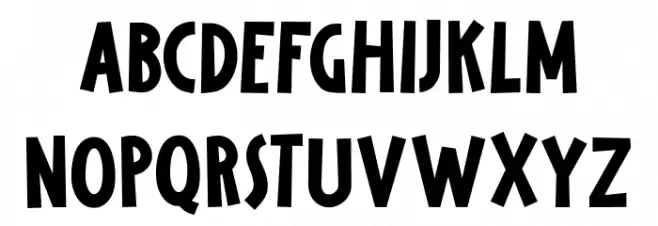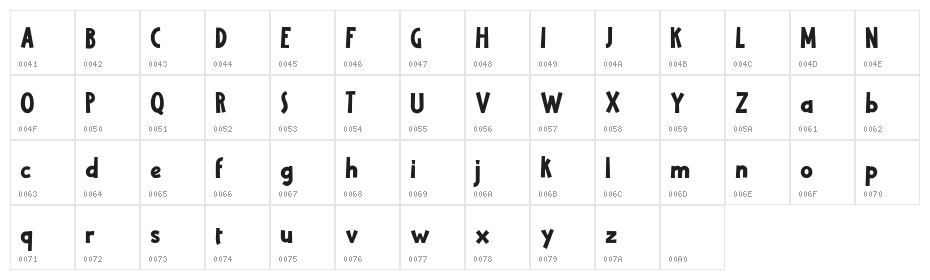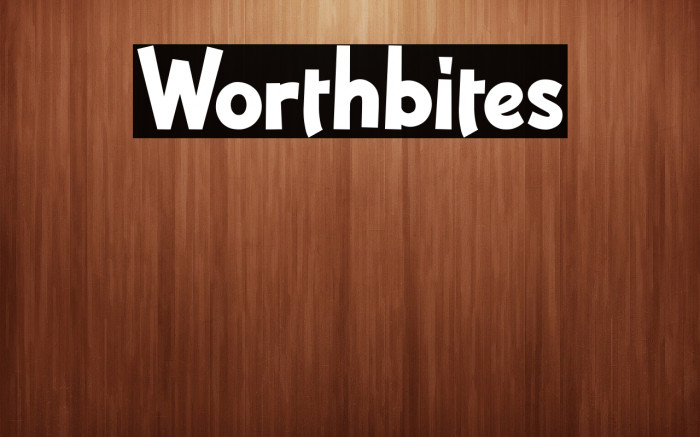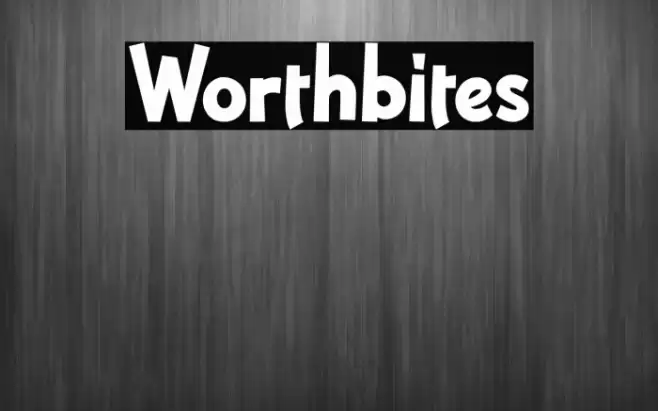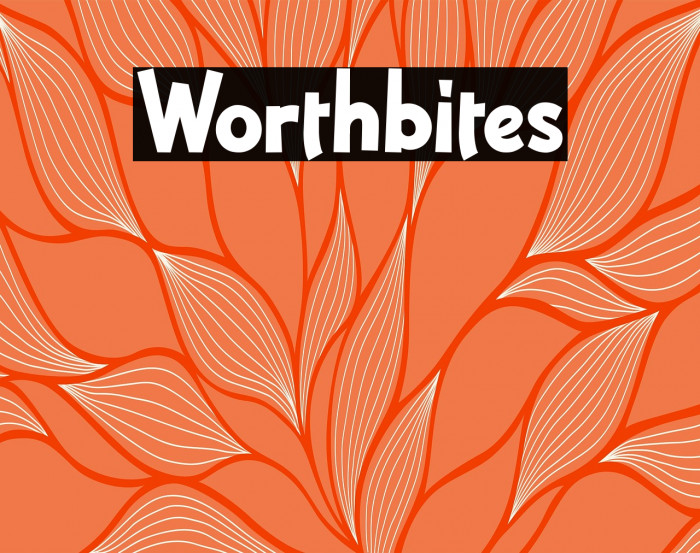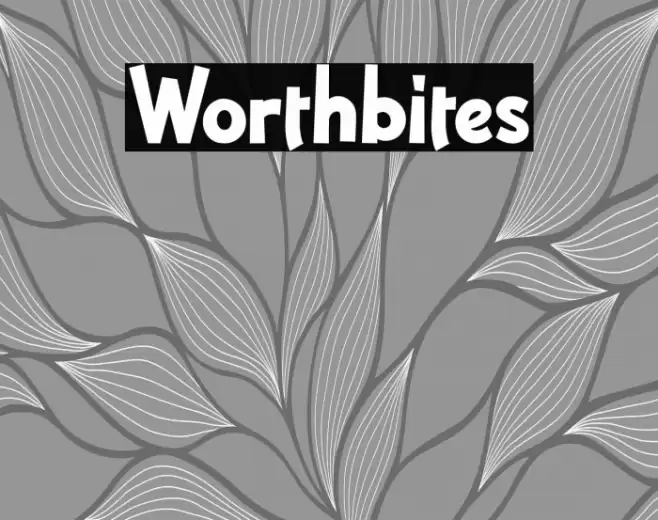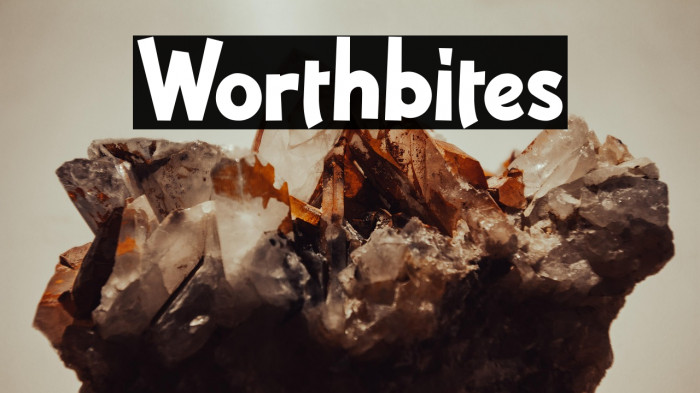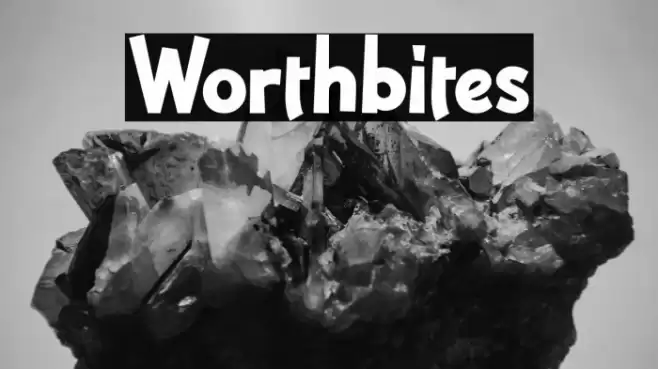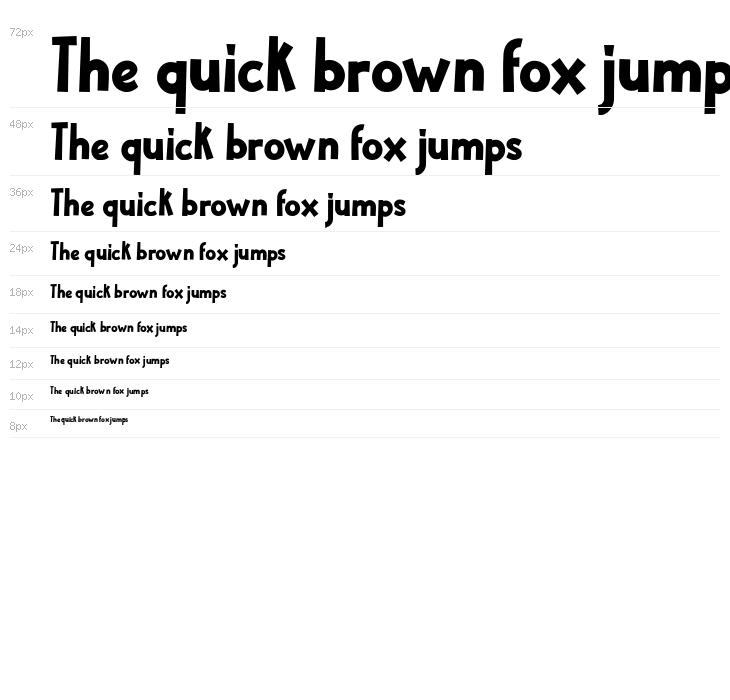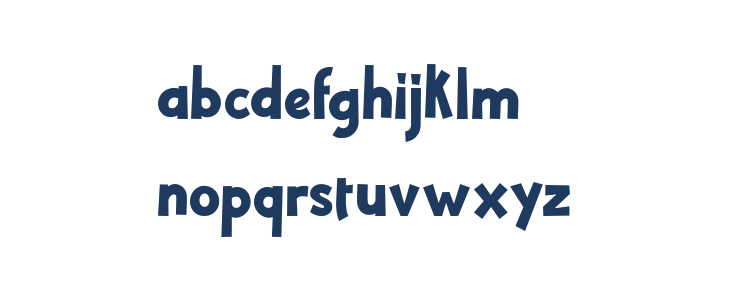
Worthbites Font
Worthbites Description
This font features a bold and playful design, characterized by its uneven and slightly irregular letterforms that add a sense of whimsy and creativity. The uppercase and lowercase letters maintain a consistent style, with exaggerated curves and angles that give it a unique, hand-drawn appearance. The font's boldness makes it highly legible, while its quirky style adds a touch of fun and personality. It's well-suited for projects that aim to capture attention and convey a sense of joy and spontaneity.
| Overall Style | Playful, Creative |
| Proposed Projects | Ideal for children's books, playful branding, posters, and creative invitations. |